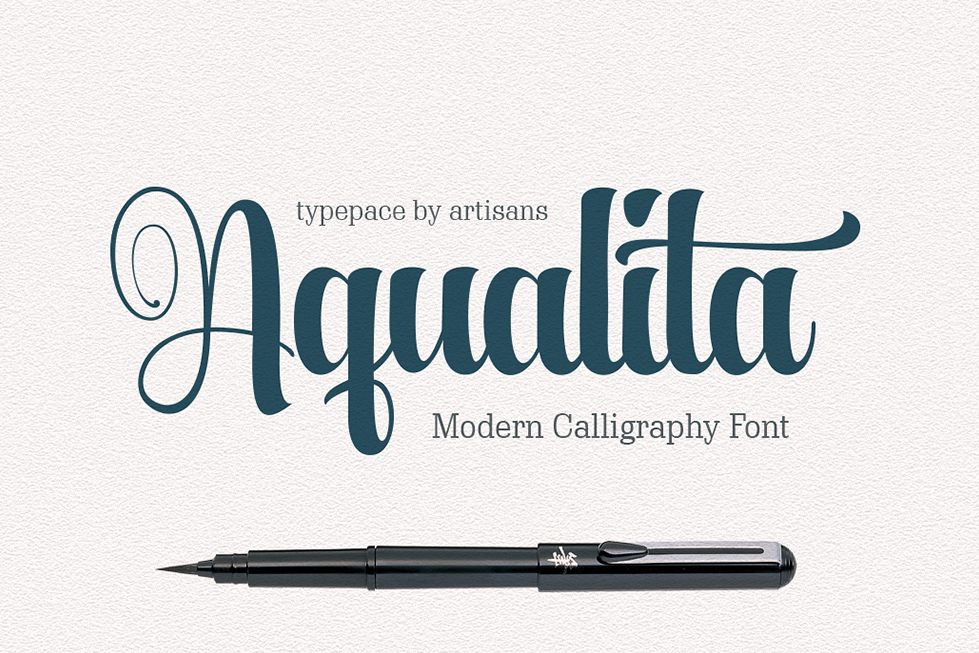
Aqualita
Aqualita is bold and italic script font, And has a flexible character, there is also the top of each glyph slightly sloping.
The Features of this fonts is;
Standart ligatures
Stylistic Alternates
Stylistic sets
ornament